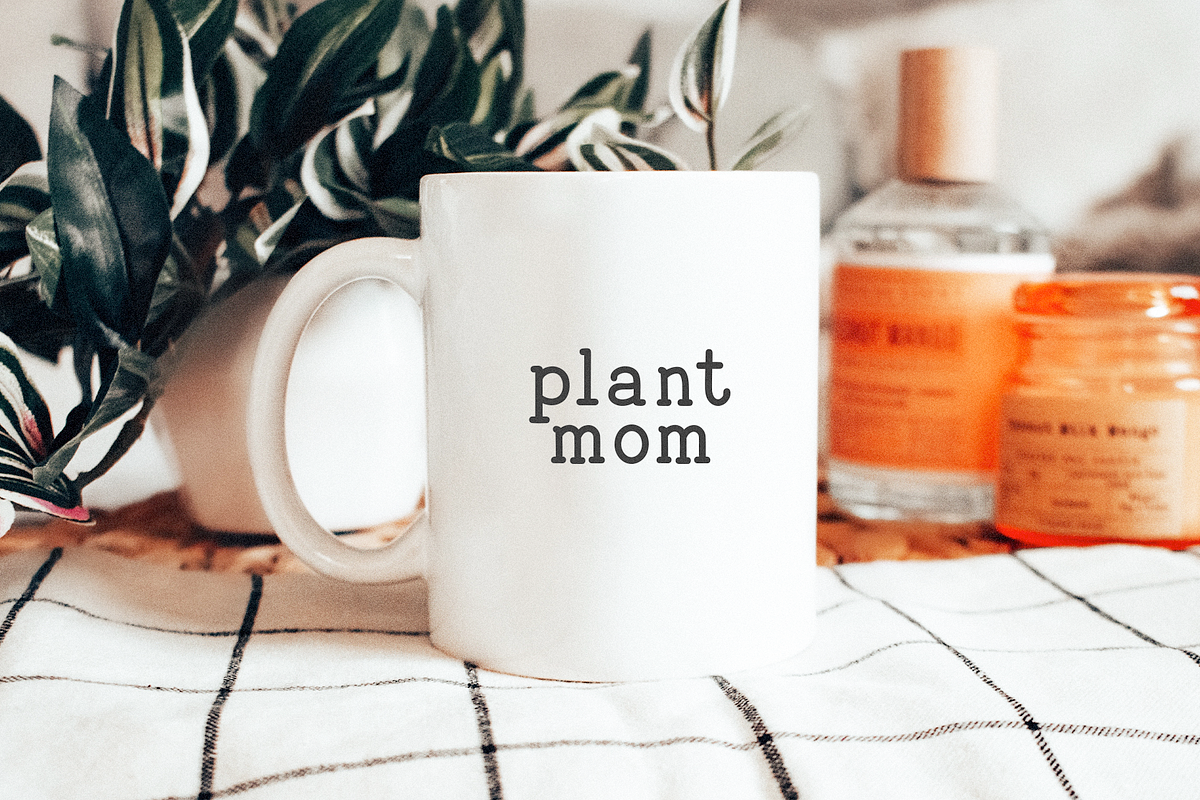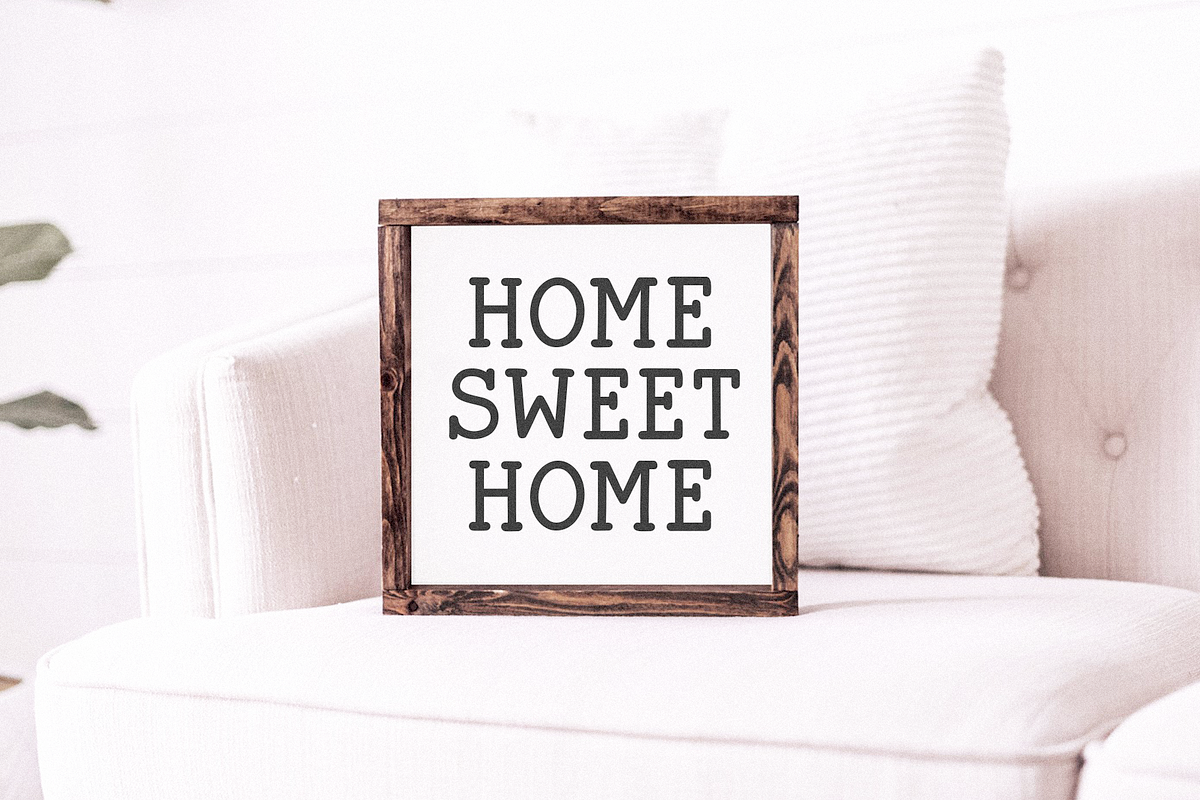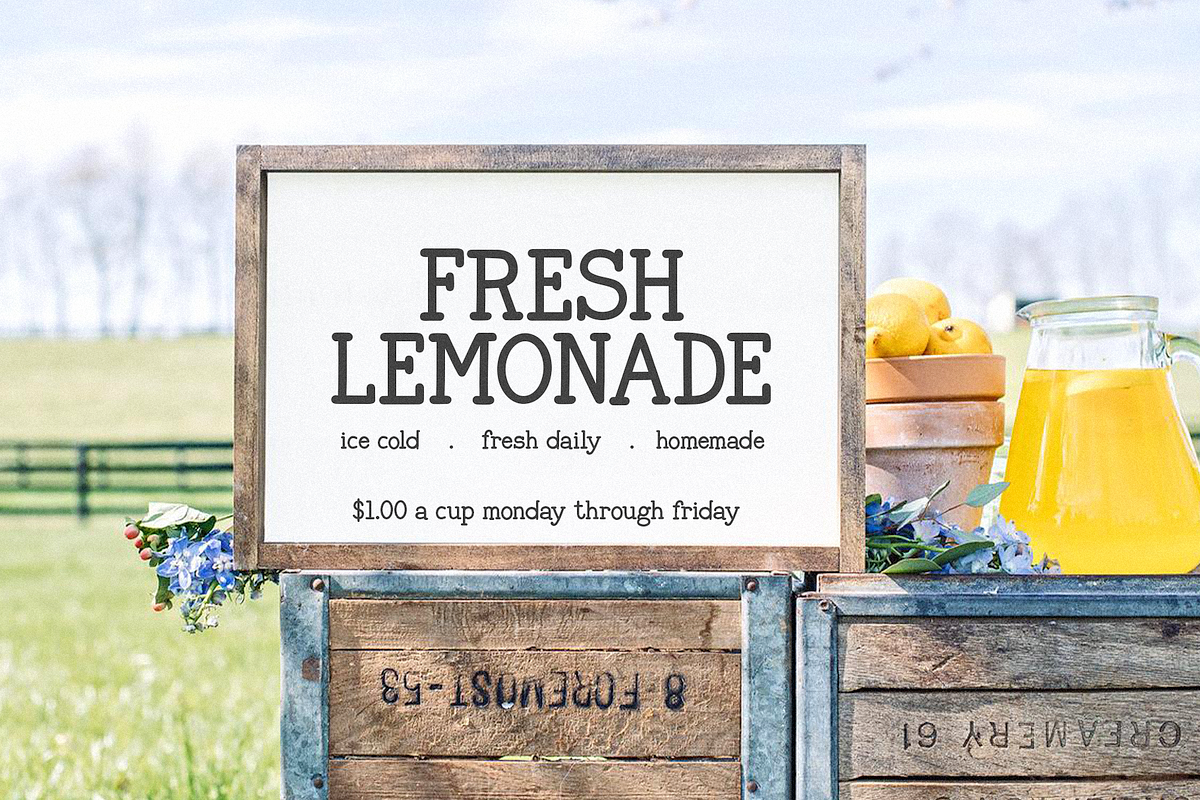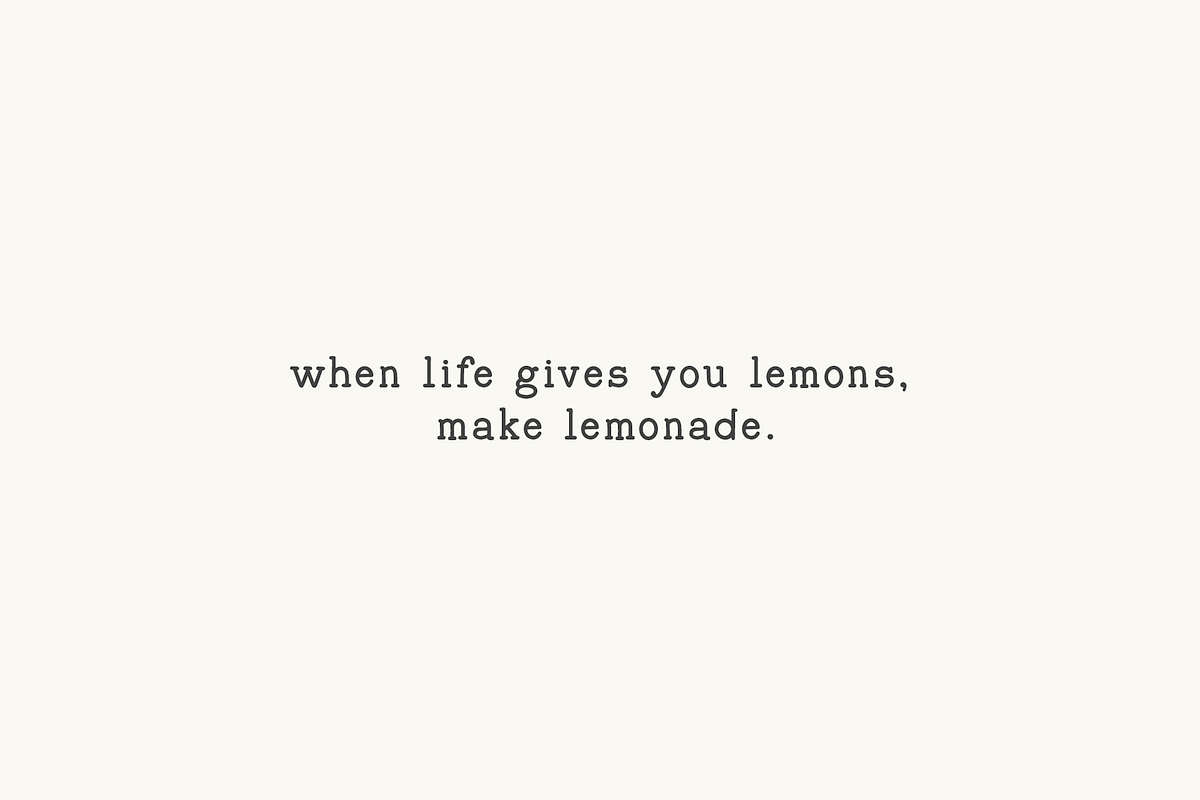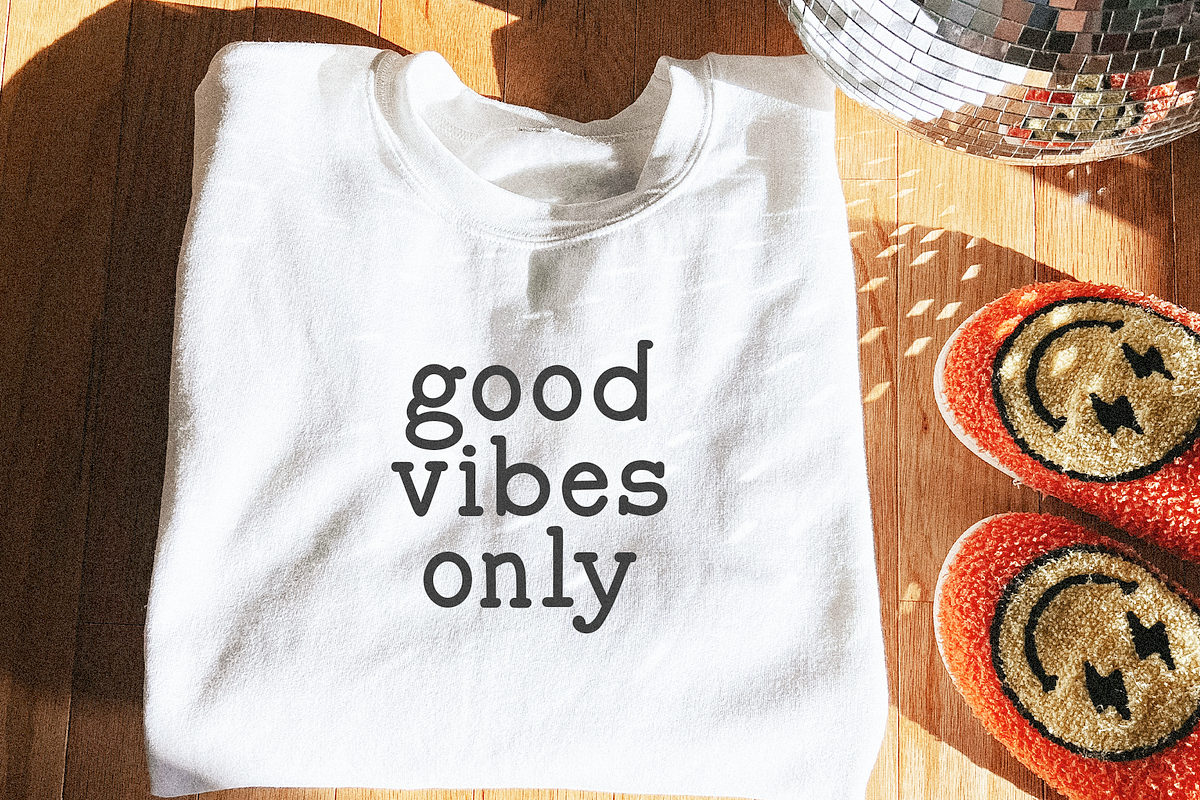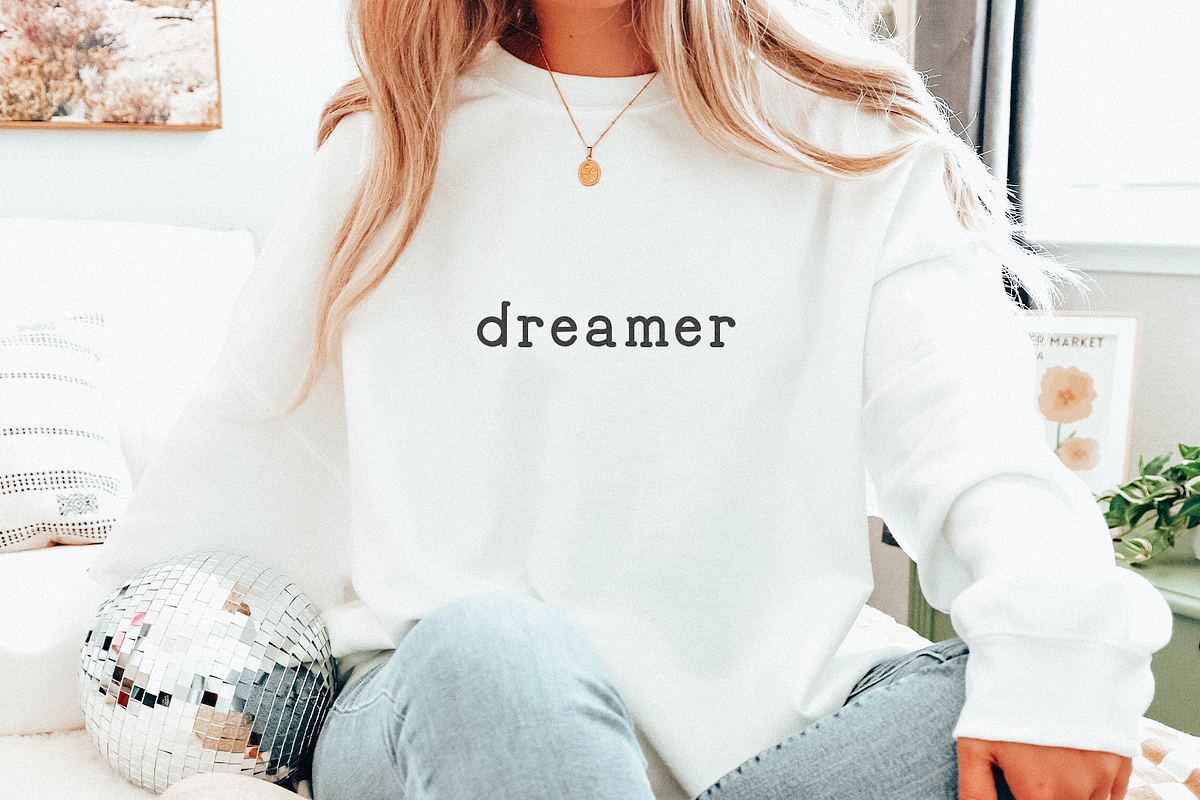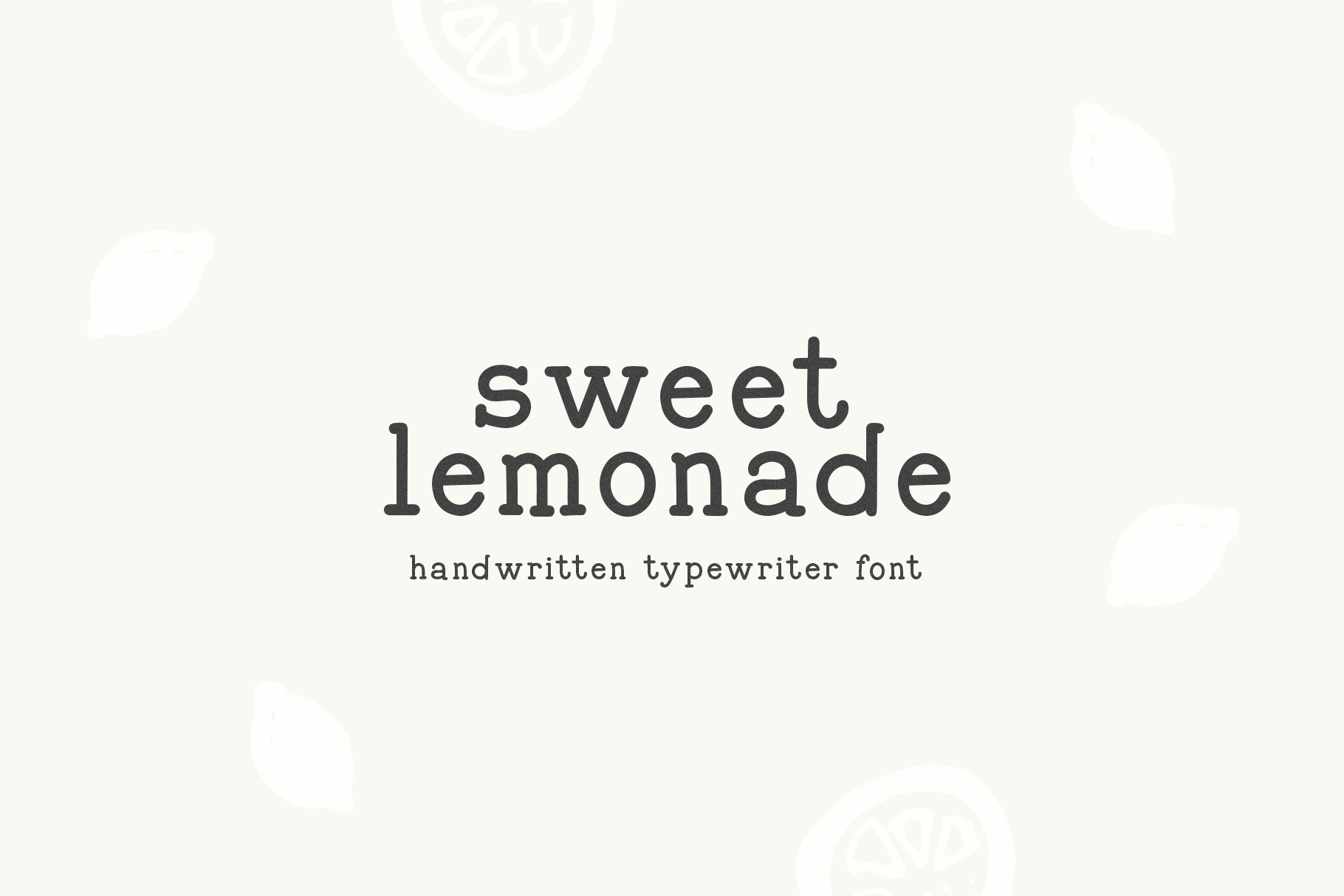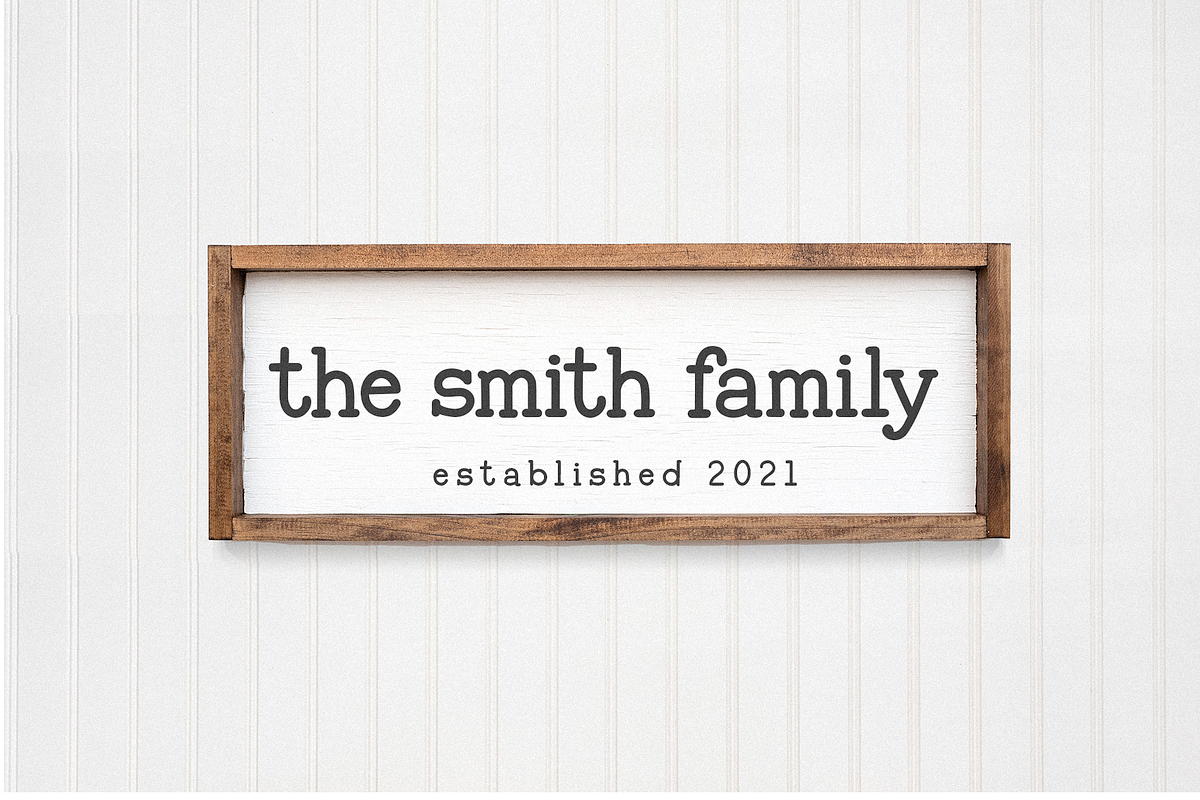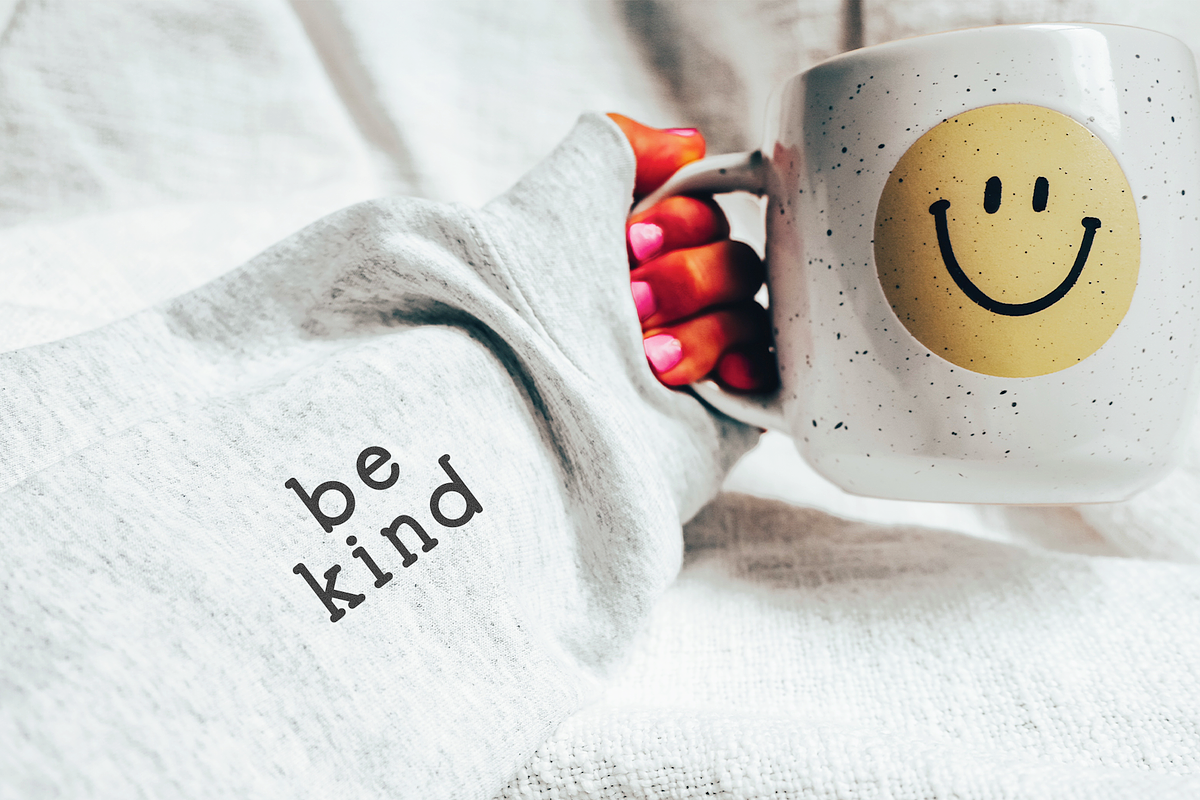
Sweet Lemonade | Typewriter Font
Sweet Lemonade is a cute typewriter style font.
This font is perfect for all of your farmhouse designs, decor, quotes, shirt designs, branding, svg designs, blogs, logos, invitations and more!
Most accent characters included.